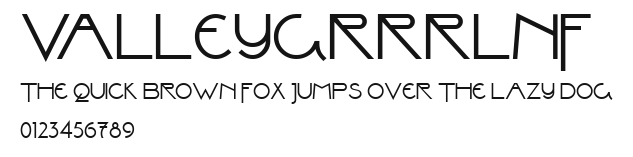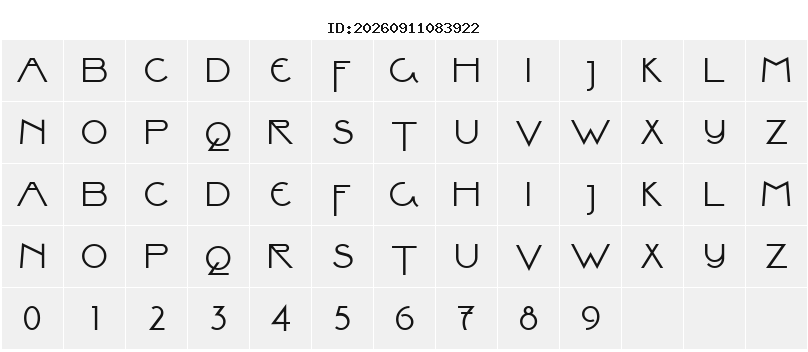
• Designer: Nick Curtis
About ValleyGrrrlNF.ttf
ValleyGrrrlNF.ttf is a modern, elegant sans-serif font designed for ultimate readability and visual harmony. Perfect for branding, headlines, web design, and print materials.